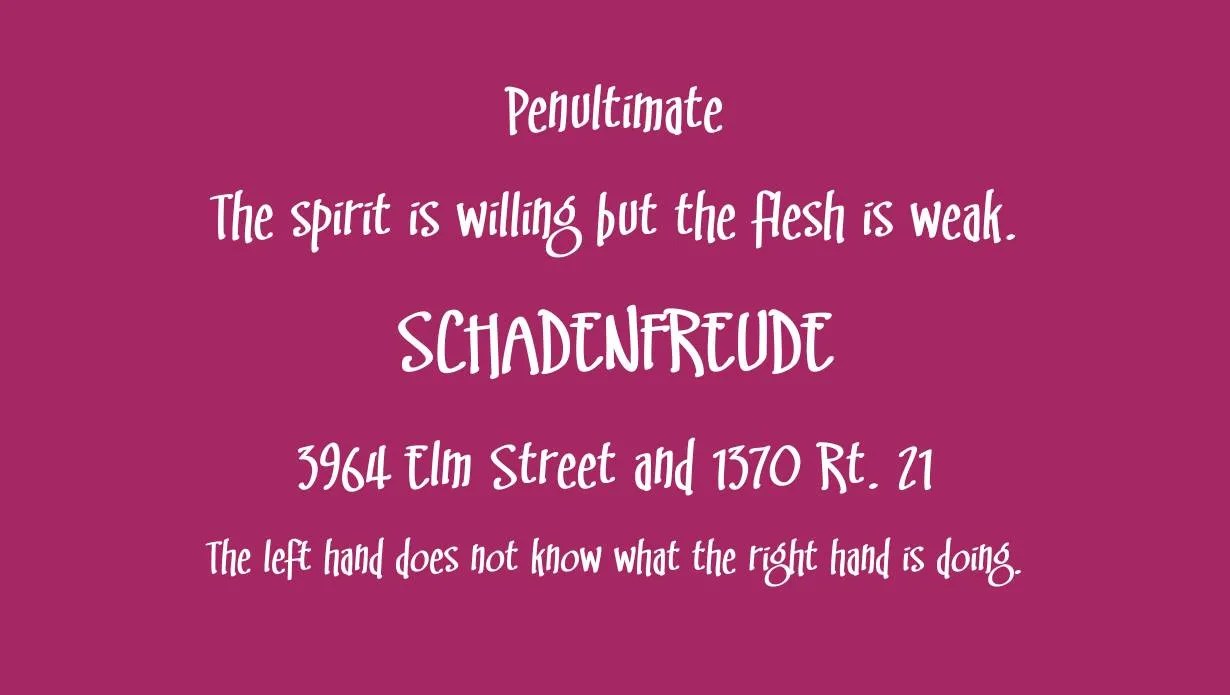
Nate Piekos designed Swing Set BB, a charming and relaxed font that fits into the fun typeface group. Featuring uneven and lively letters, this font gives off a hand-drawn vibe, ideal for expressing a cheerful mood.
In applications such as children’s books, invitations, and projects aiming for a playful touch, Swing Set BB stands out. Its versatility and friendly appearance make it a go-to choice for designers seeking to inject personality and informality into their creative works.